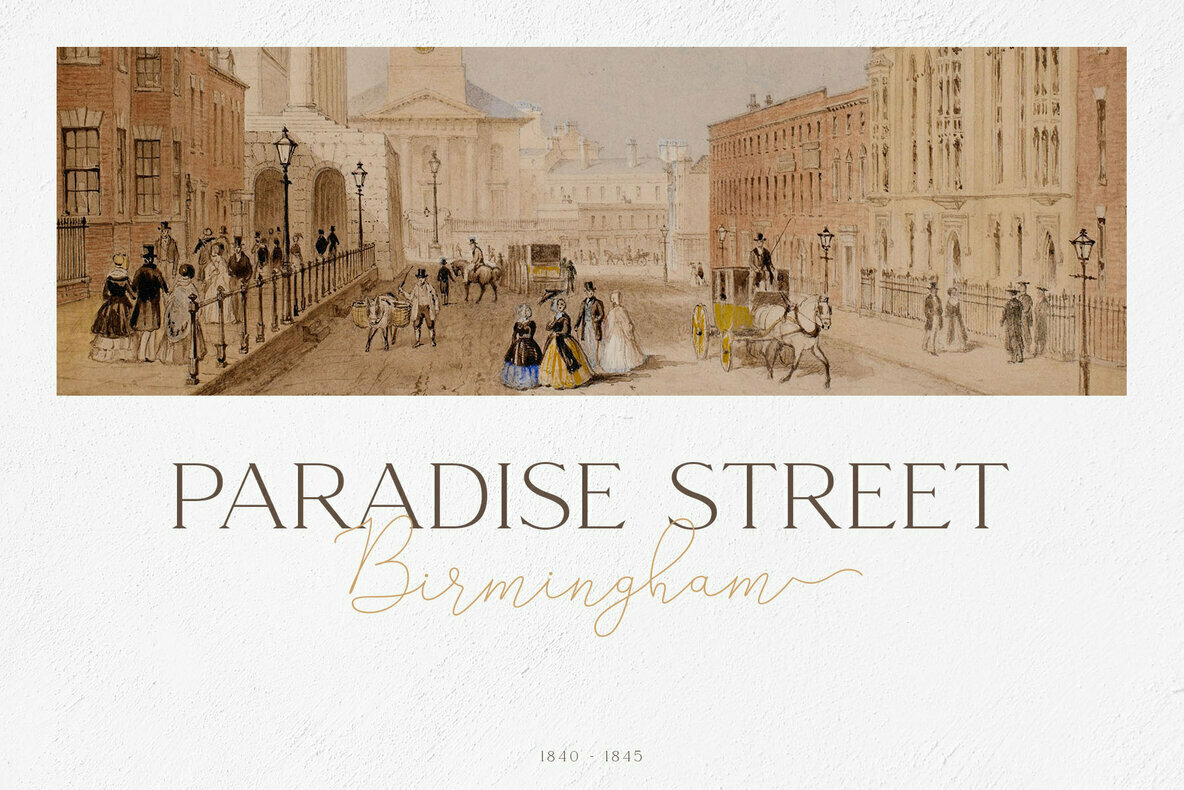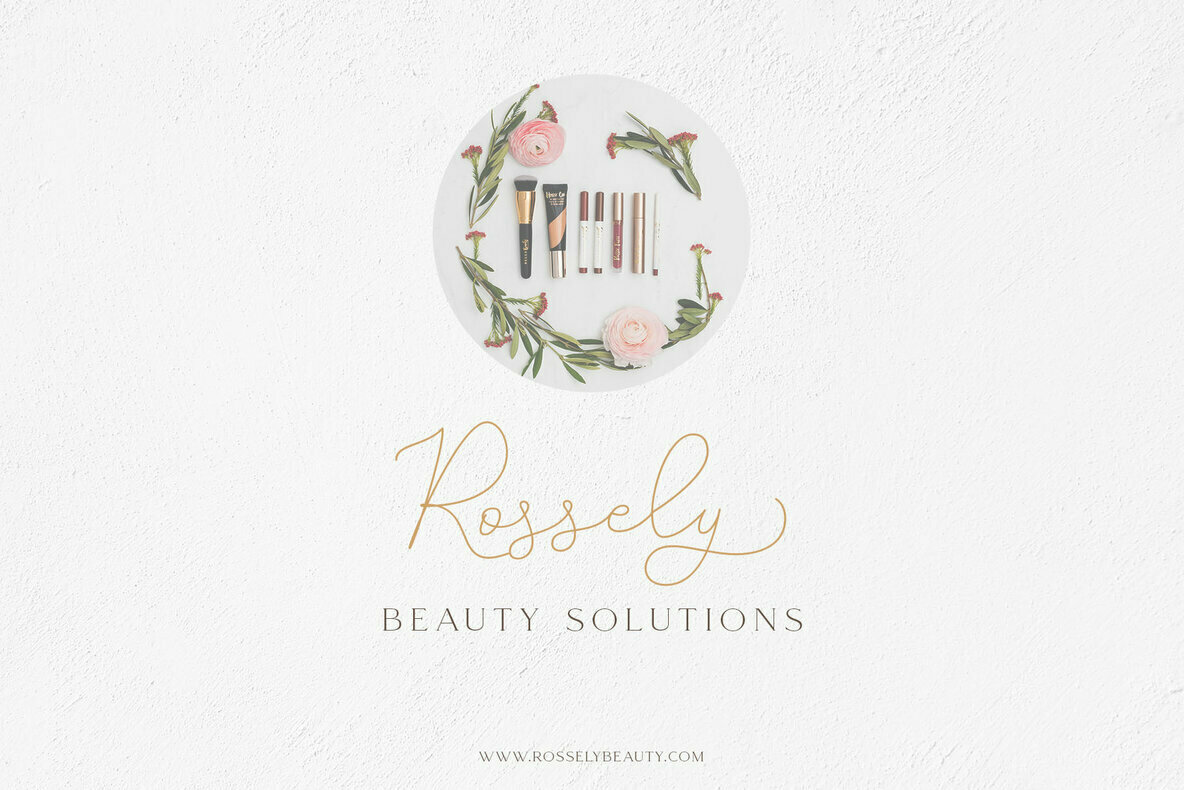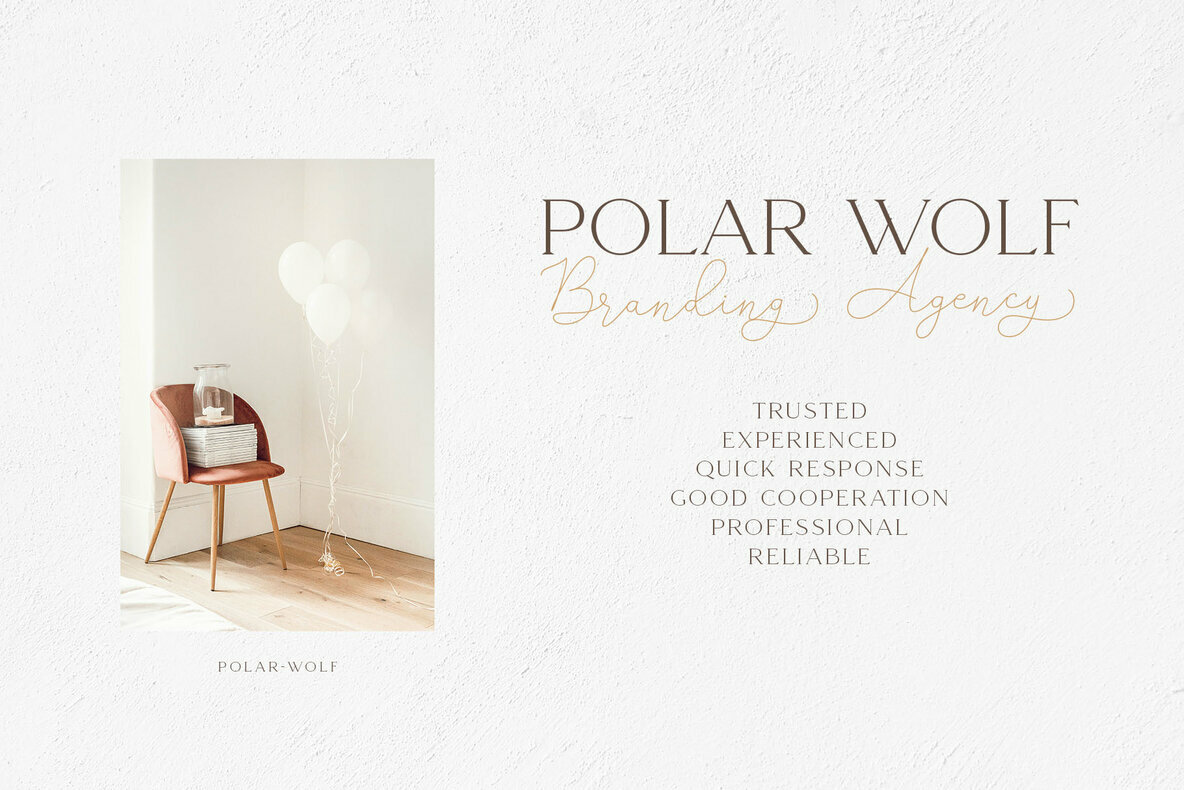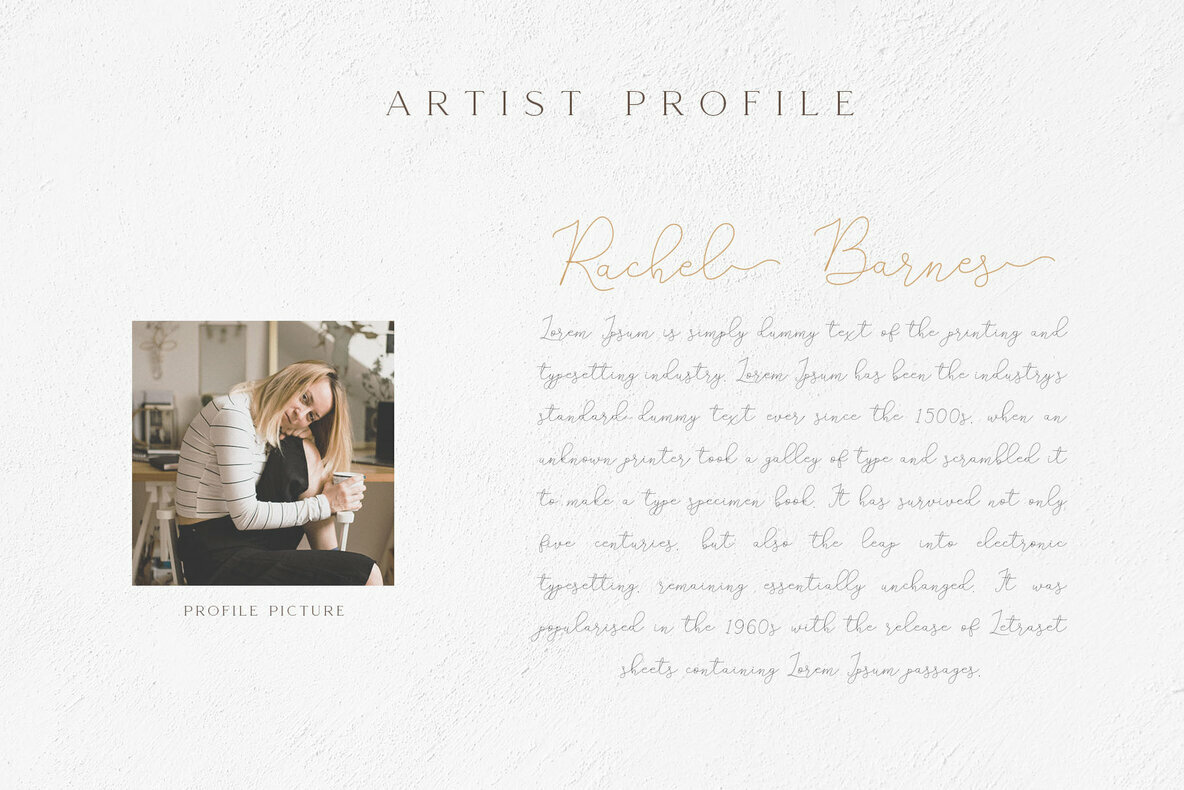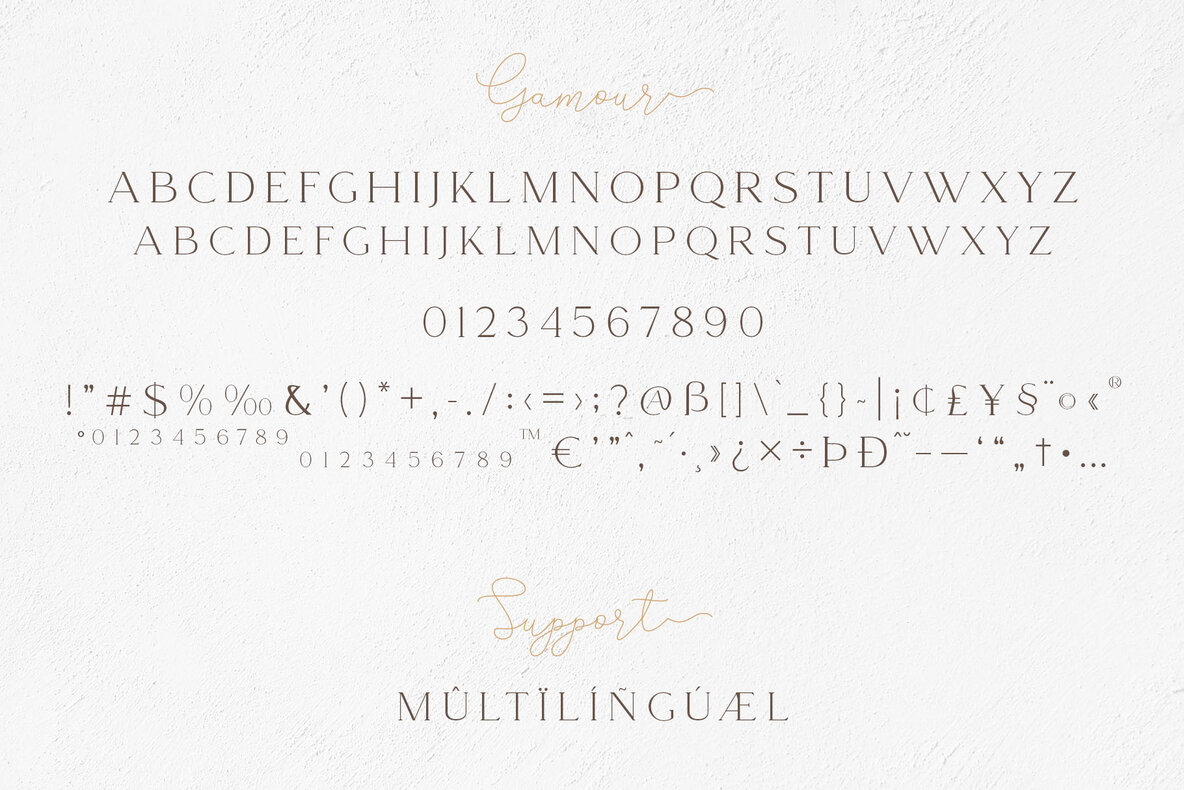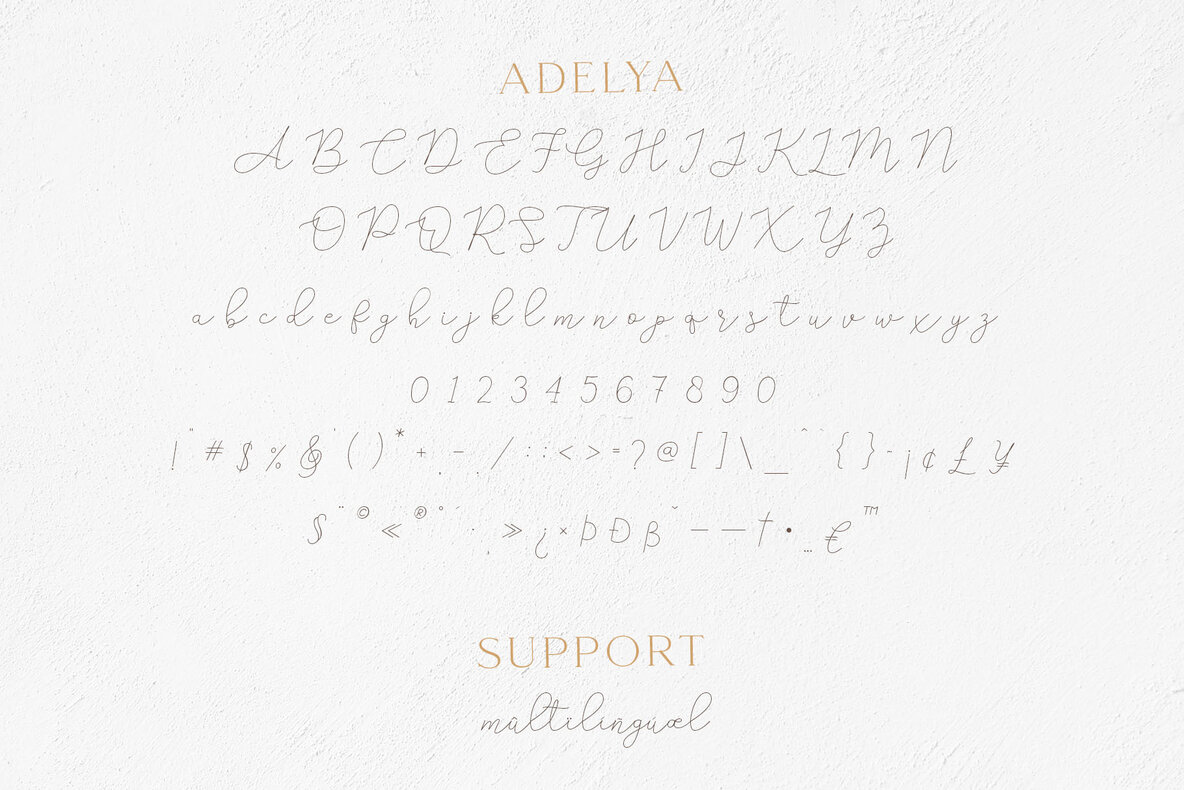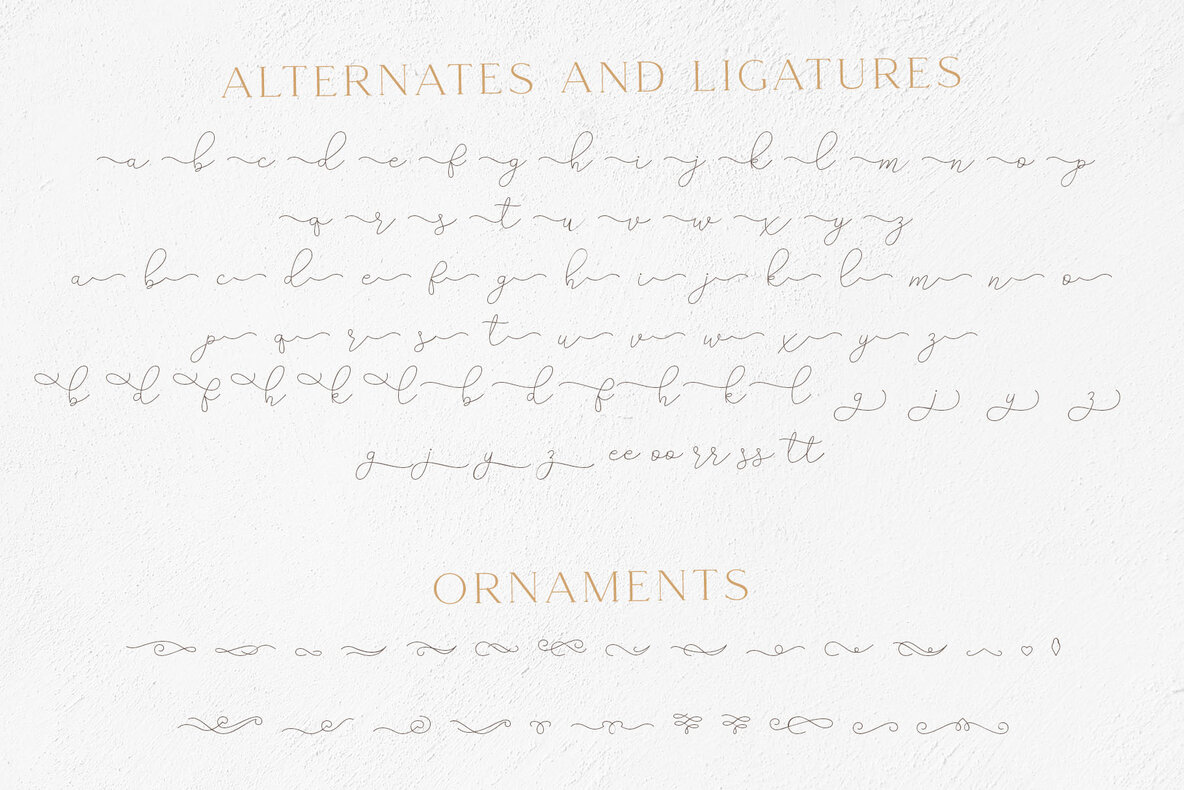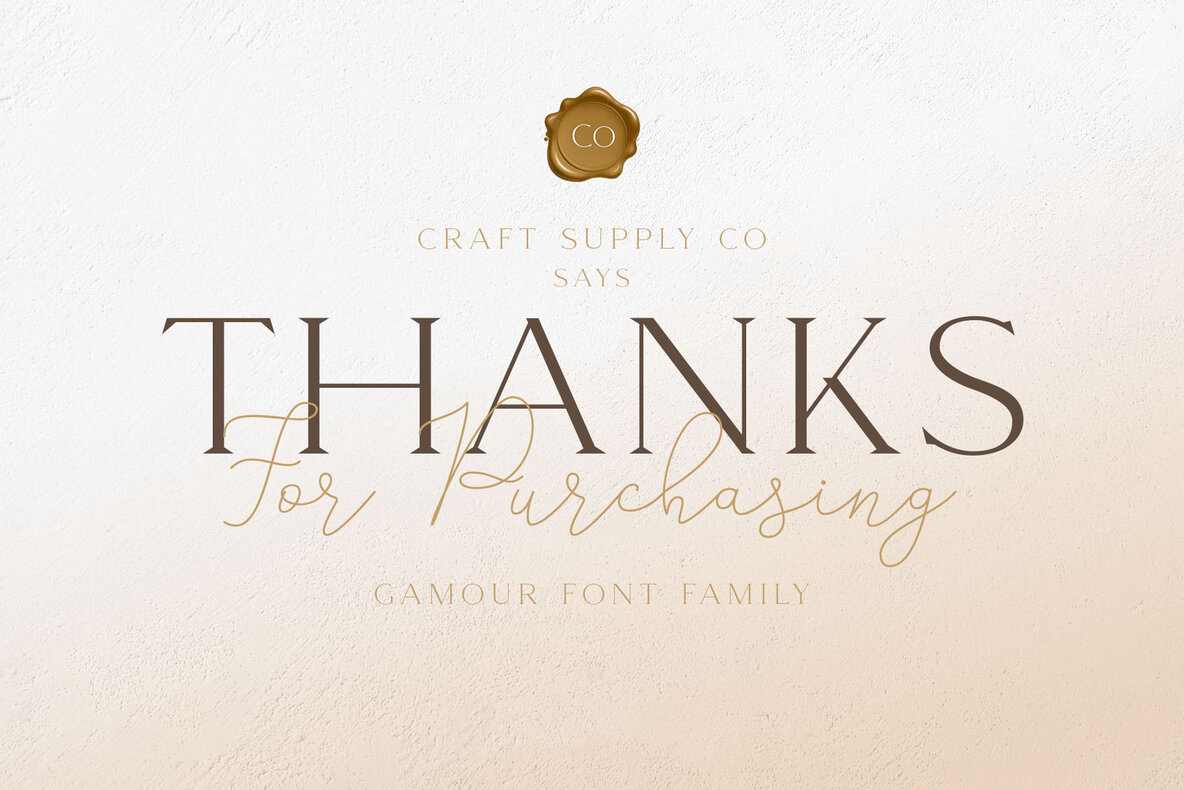
Gamour Font
Gamour - Elegant Serif Font + Bonus is a modern serif font family whose design refers us to the style of modern serif. The distinctive features of Gamour - Elegant Serif Font + Bonus are the relatively low contrast of strokes, the slightly squarish shapes of round characters and the emphasized business like simplicity.
Gamour - Elegant Serif Font + Bonus features an original stylistic set which, when turned on, adds features of typical pointed-pen serif to some of the lowercase characters. In addition, Gamour - Elegant Serif Font + Bonus has small capitals for Latin and as well as several interesting ligatures.
Gamour - Elegant Serif Font + Bonus has been crafted from scratch with a structural logic of its own: a fusion of pure geometry and optical balance. By combining a variety of styles Gamour - Elegant Serif Font + Bonus is suitable for Logo, greeting cards, quotes, posters, branding, name card, stationary, design title, blog header, art quote, typography
Gamour - Elegant Serif Font + Bonus also suitable for art, modern envelope lettering or book design, happening style like handdrawn design or watercolor design theme, craft design, any DIY project, book title, wedding font, pop vintage design, or any purpose to make our art/design project look pretty and trendy.
- All Caps, Uppercase & Lowercase
- Special Ligatures Adelya ( ee oo rr ss tt)
- Stylistic Alternates Adelya (up to 4 Style for each alphabet)
- Numerals & Punctuations (OpenType Standard)
- Accents (Multilingual characters) AÀÁÂÃÄÅCÇDÐEÈÉÊËIÌÍÎÏNÑOØÒÓÔÕÖUÙÜÚÛWYÝŸỲŸÆŒßÞþ